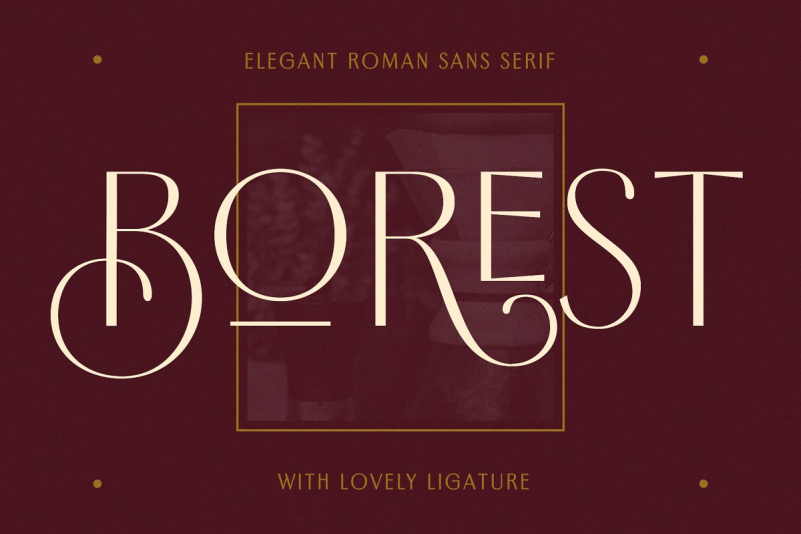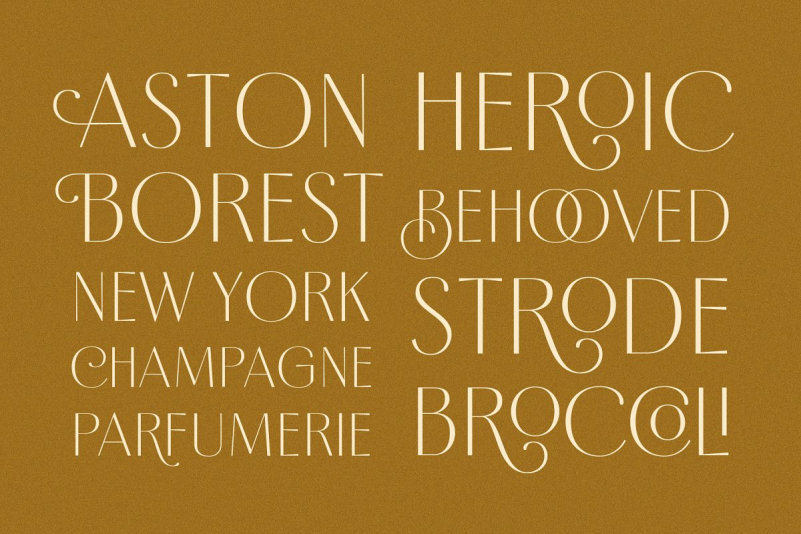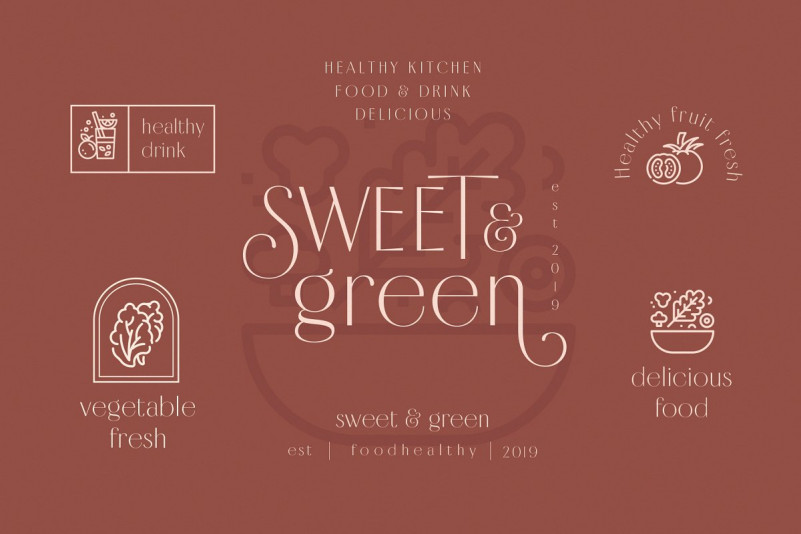
Borest Elegant Roman Font
Borest, A new carefully crafted roman sans serif fonts. The Ideas of this fonts are from wide range of reference, from vintage, classic, art deco, until the modern era. So the looks of this fonts must be in the wide range of the reference above. It’s Versatile and Luxury feel that you get in Borest Typefaces. As you can see our creation on the display such as Branding, Header, Logotype, Poster, Magazine, Packaging, Wedding Invitation with art deco style, and etc. It shows that Borest can accommodate various design style.